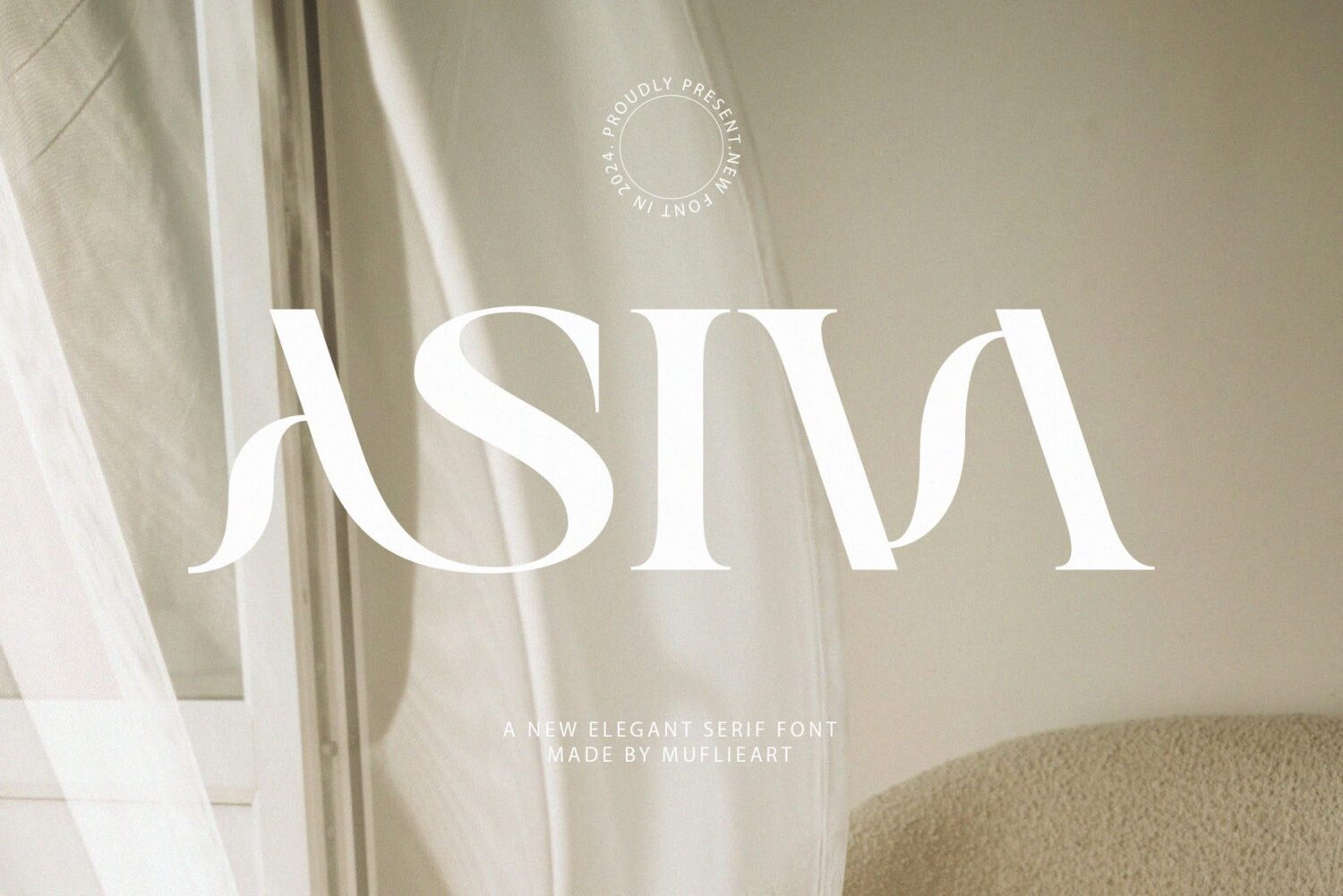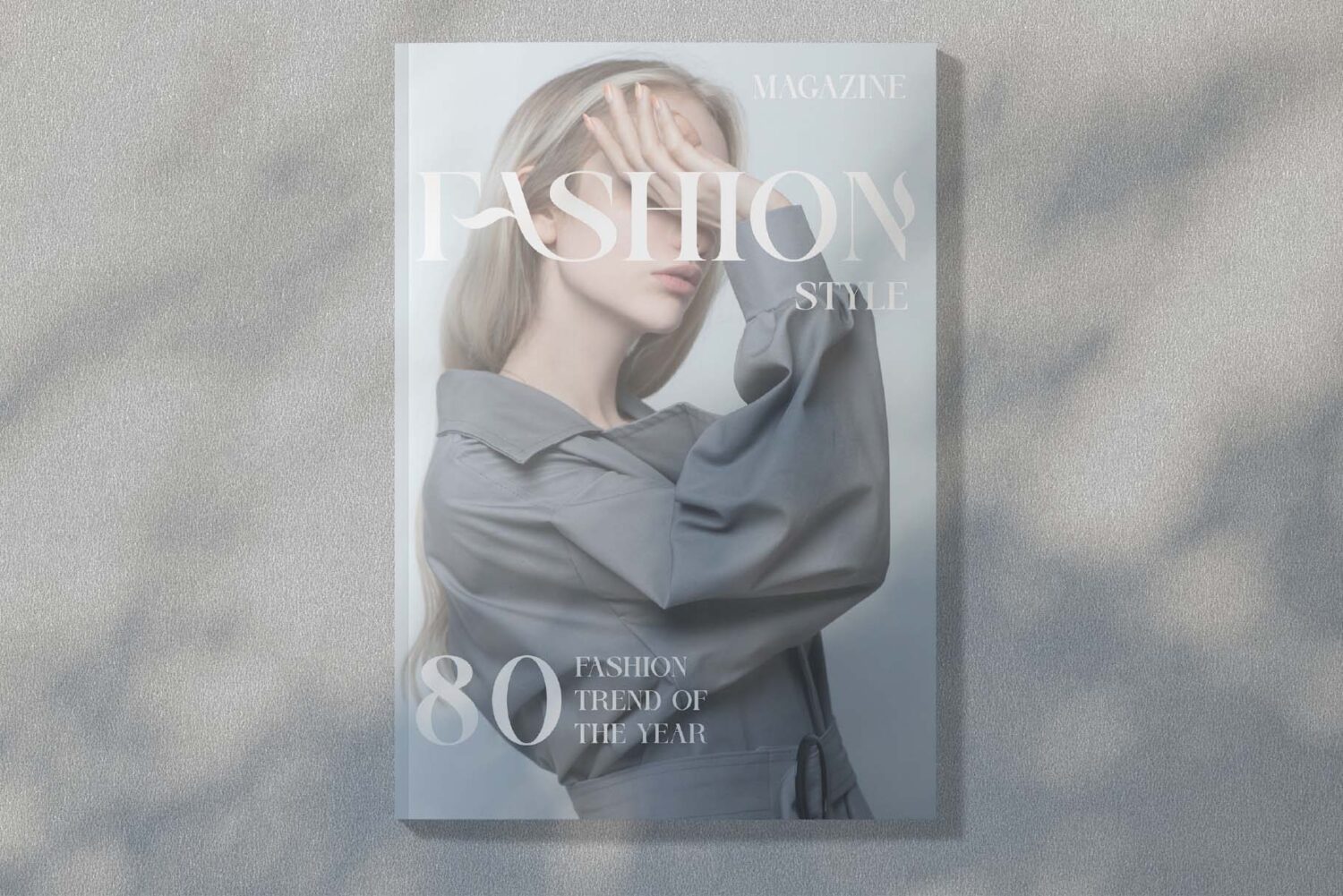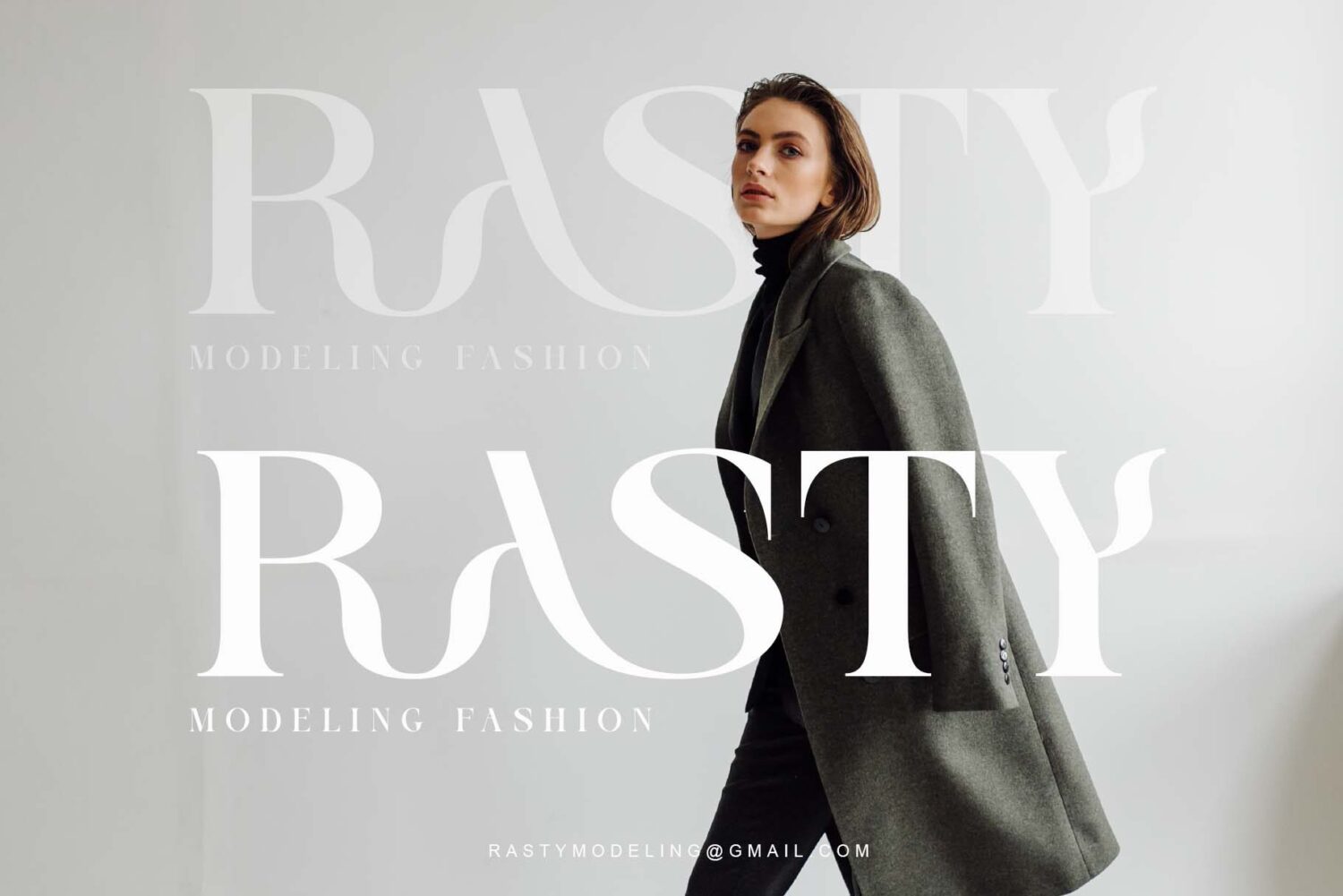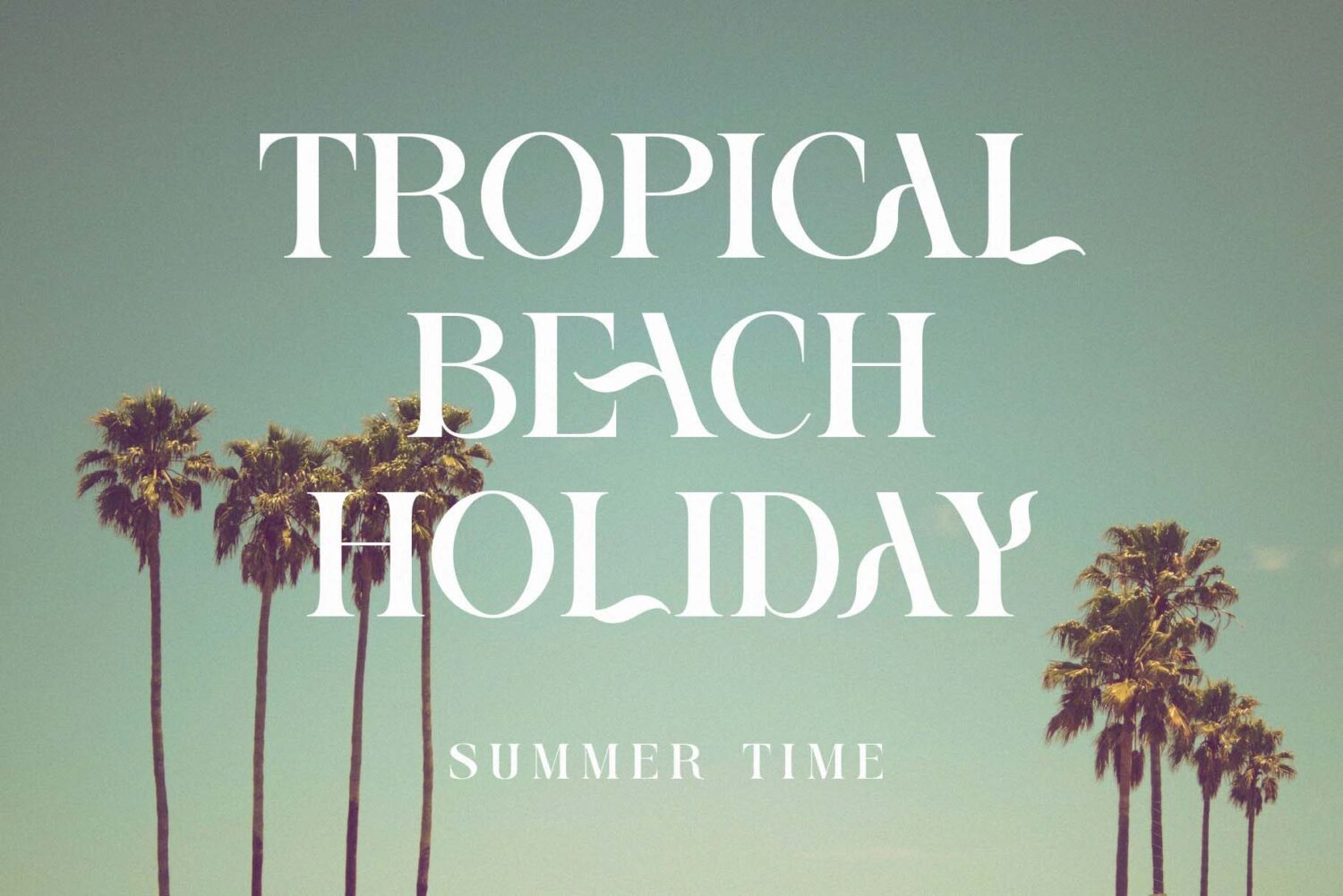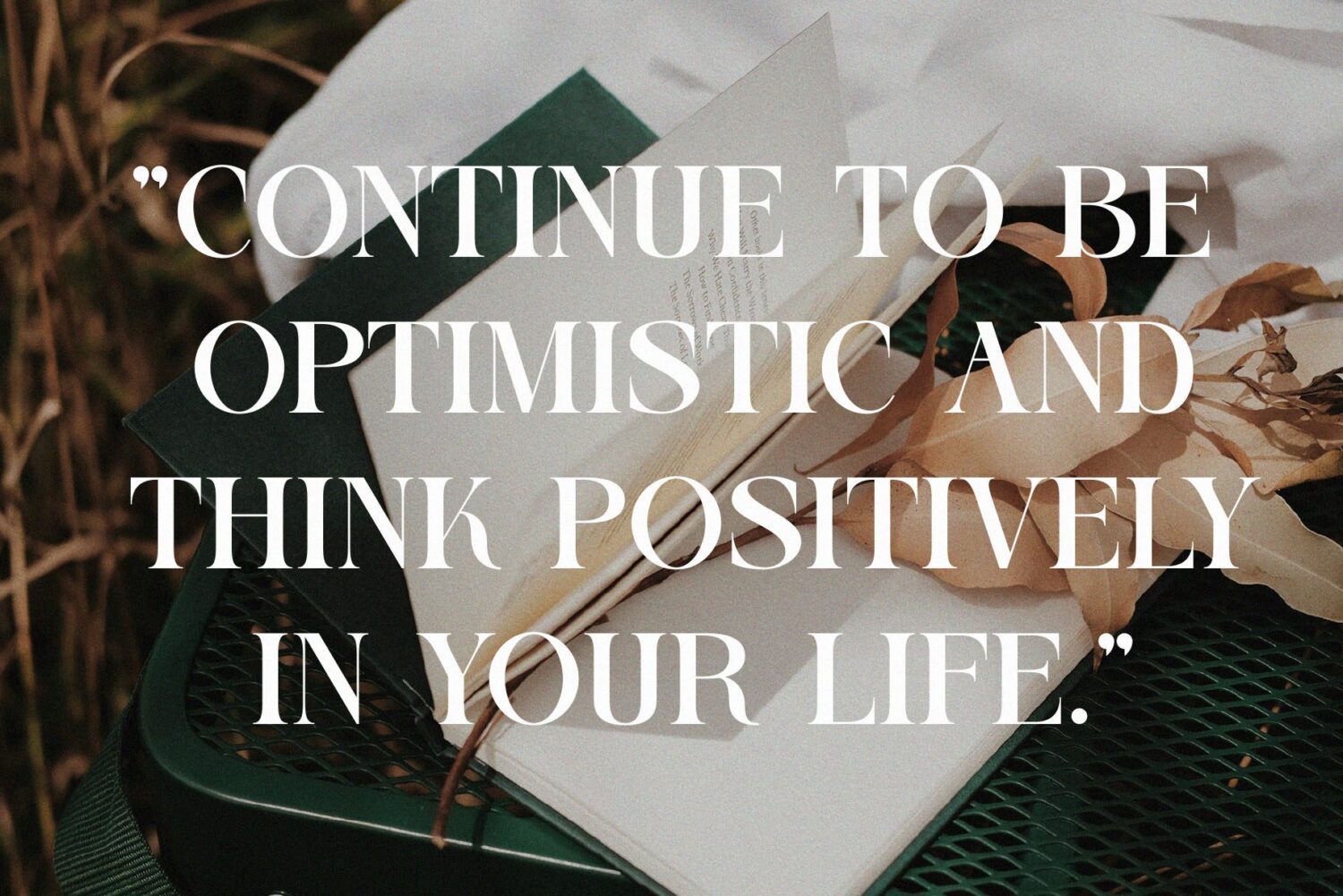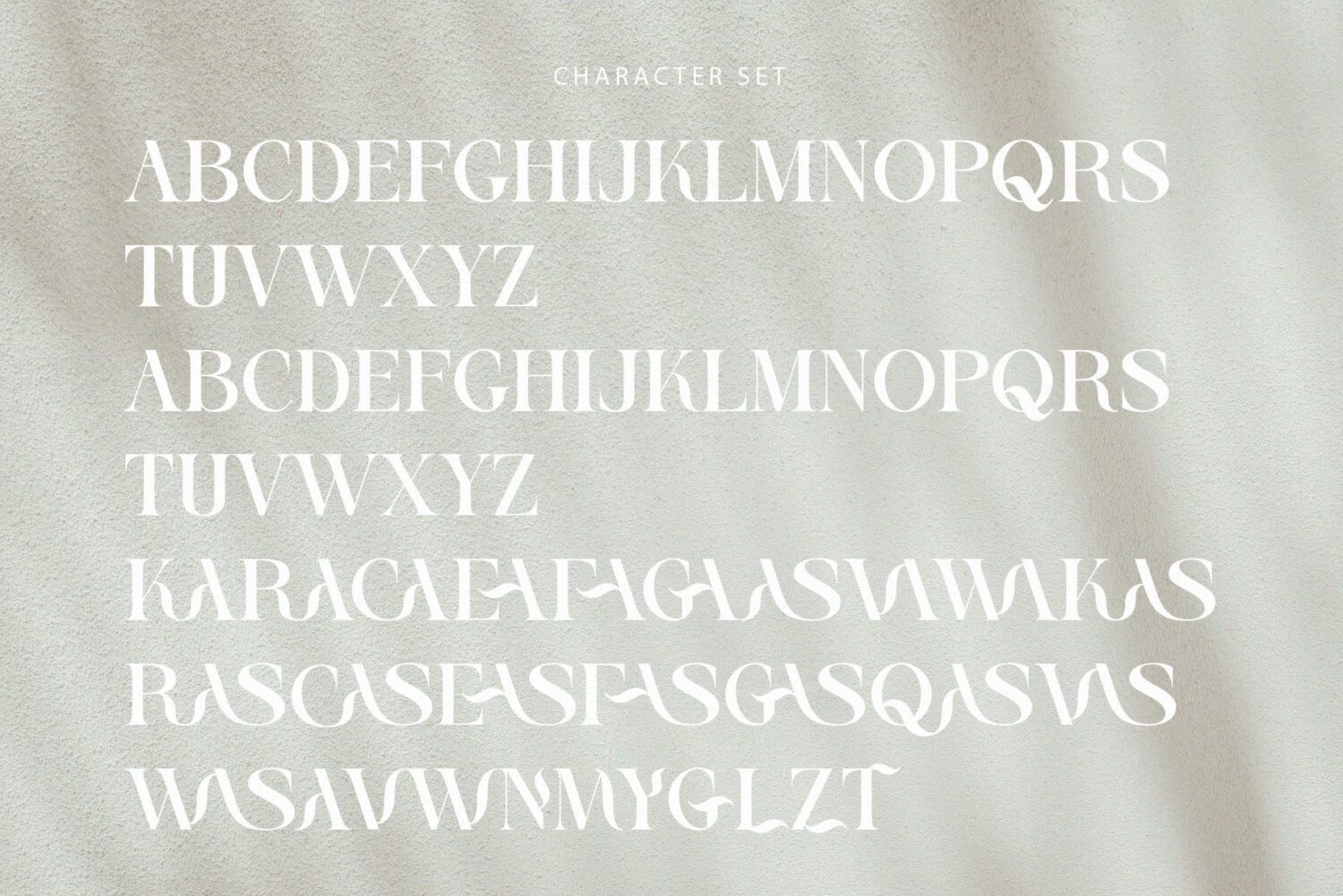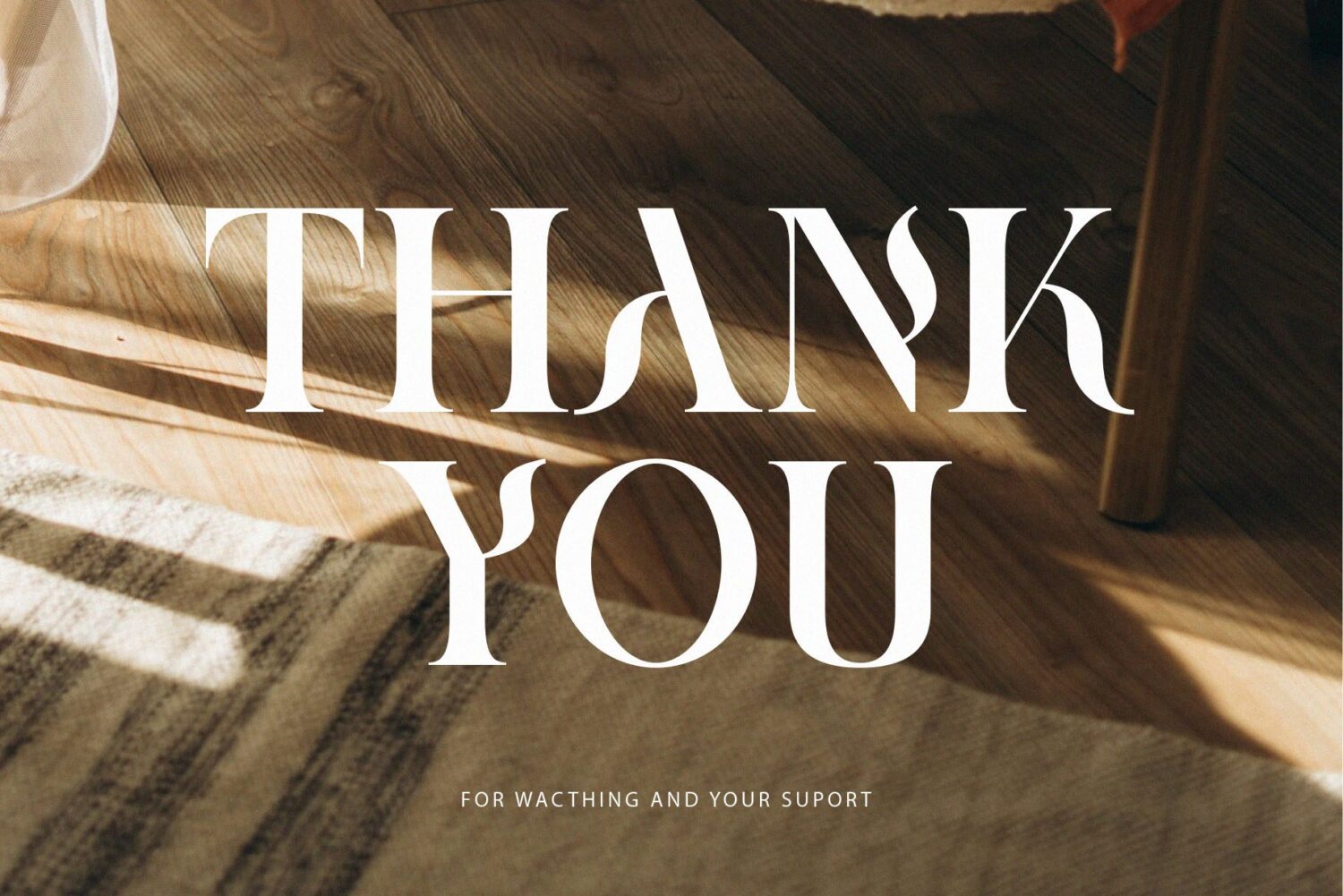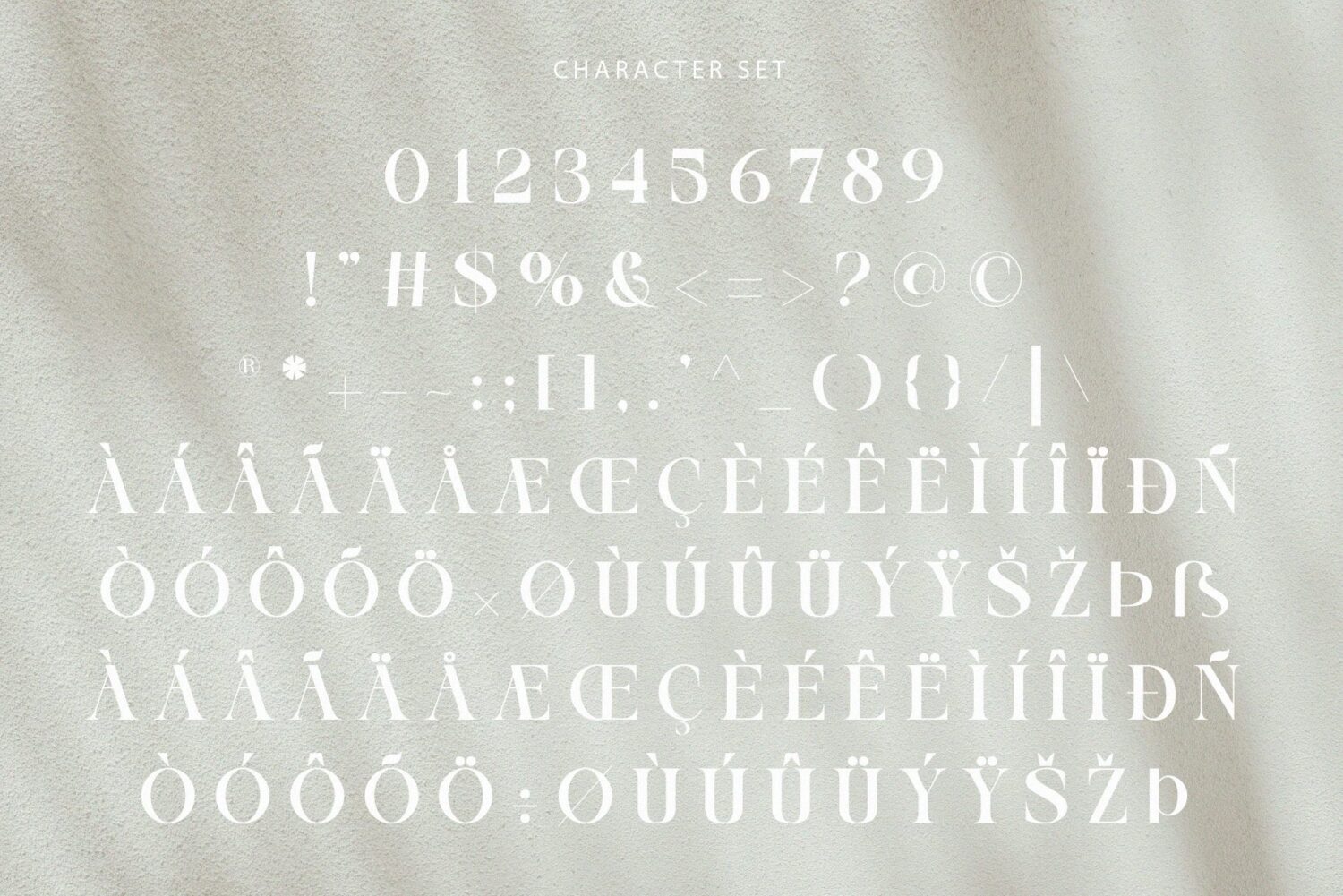
elegant and modern serif font
ASIVA
Introducing ASIVA: An elegant and modern serif typeface. With its modern and minimalist appearance, ASIVA brings a luxurious and clean style to your projects such as websites, modern logos, branding identities, social media quotes, wedding stationery and various other needs!
ASIVA displays unique and classy capital letters A to Z and is also equipped with letter binding so that it is a beautiful font that can be adapted to various large projects that you want.
ASIVA – Elegant and Modern Serif Typeface